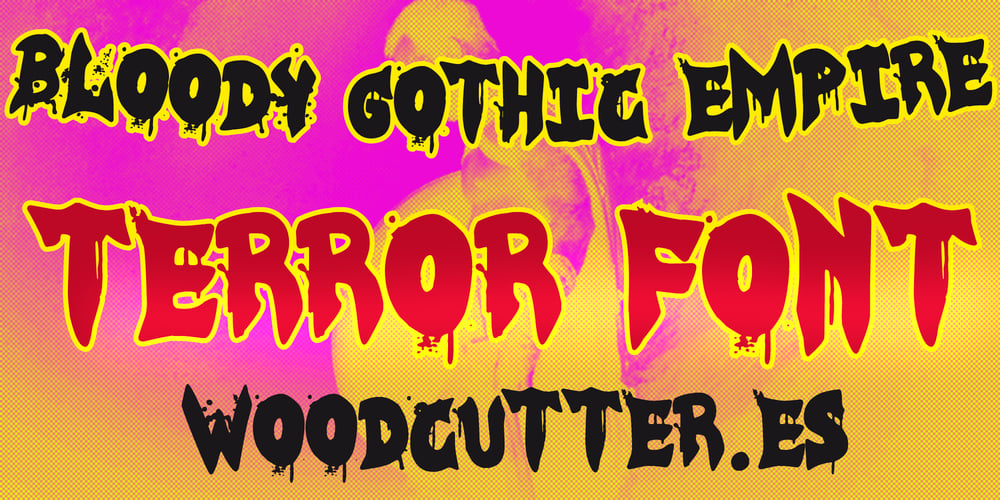
Bloody Gothic Empire Font Family was designed by Jordi Manero and published by Woodcutter. Bloody Gothic Empire contains 1 styles and family package options. “Bloody Gothic Empire” is an uppercase typeface that combines the power of traditional Gothic style with a chaotic and modern touch. Its letters feature an impressive dripping effect, simulating blood drops flowing from the strokes, giving it a dark and terrifying look. Each character is carefully crafted to balance Gothic elegance with a sense of disorder. It also includes accents, making it suitable for various languages. Perfect for projects related to horror, metal, or dark-themed designs, this typeface delivers an intense and striking aesthetic that captures attention instantly.